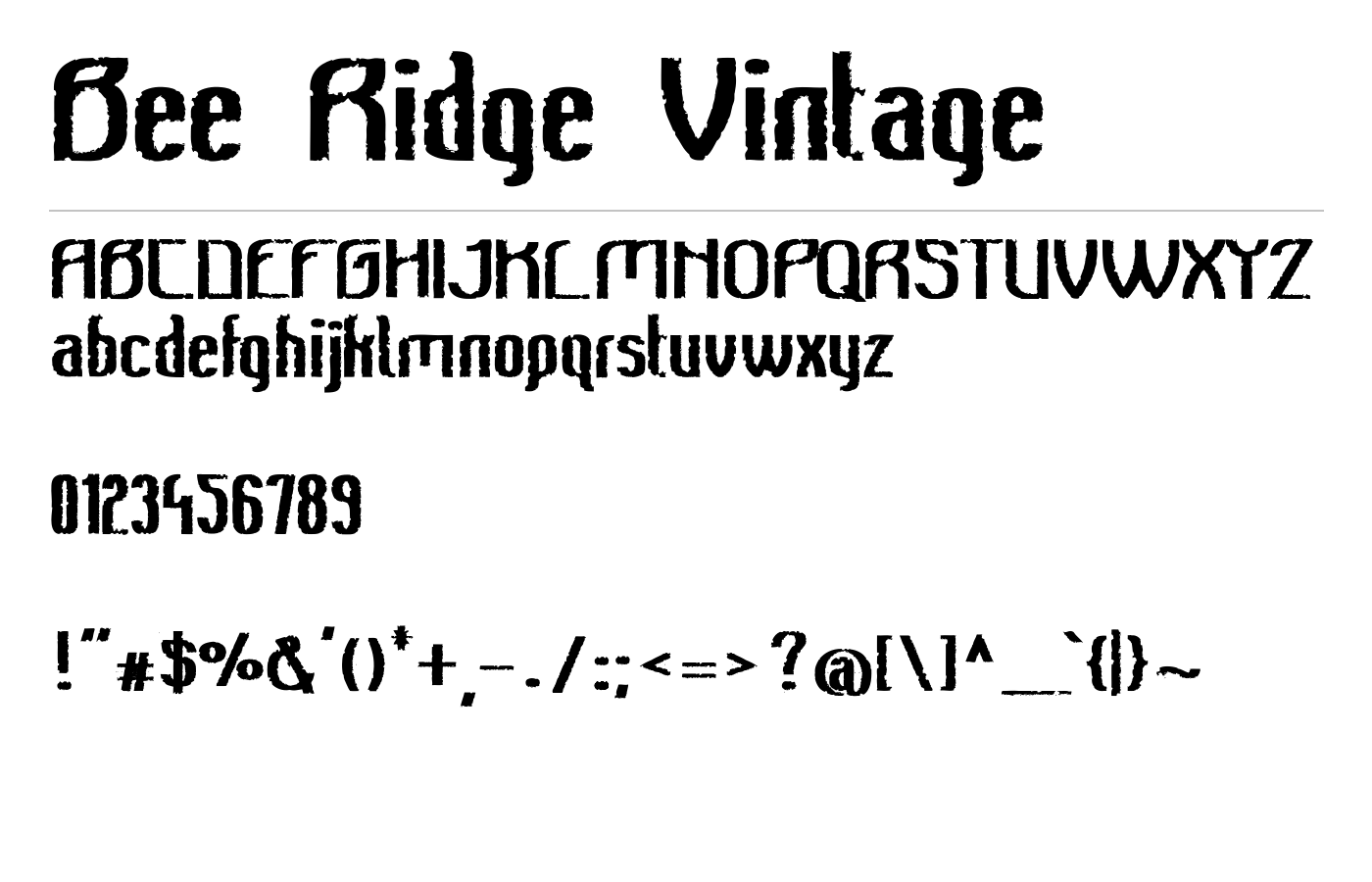
Bee Ridge Vintage is a distressed, condensed serif font that exudes a nostalgic, handcrafted charm. With its rough texture, tall x-height, and unique letterforms, it brings a strong vintage personality ideal for branding, posters, and editorial work seeking an authentic, rugged look. This font works especially well in designs that aim for a bold yet approachable mood with a touch of retro character.
Bee Ridge Vintage Font
About Bee Ridge Vintage Font
| Designer | Roland Huse |